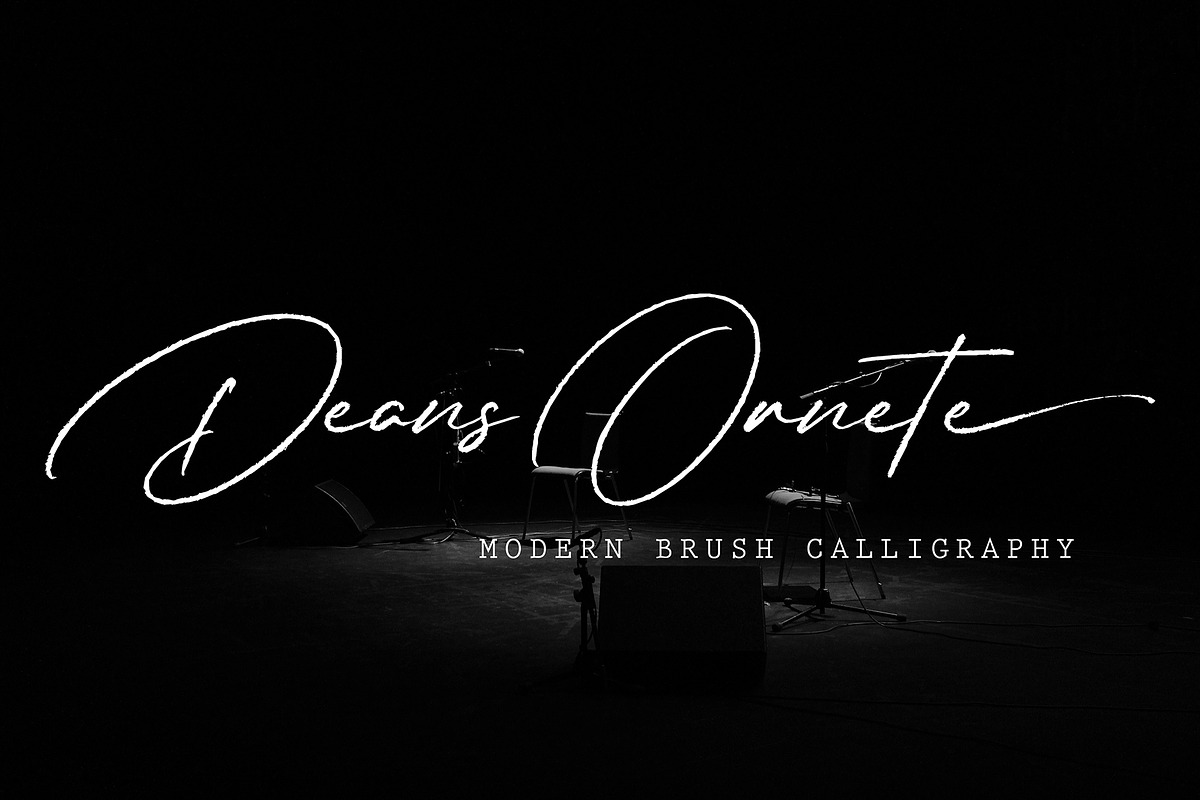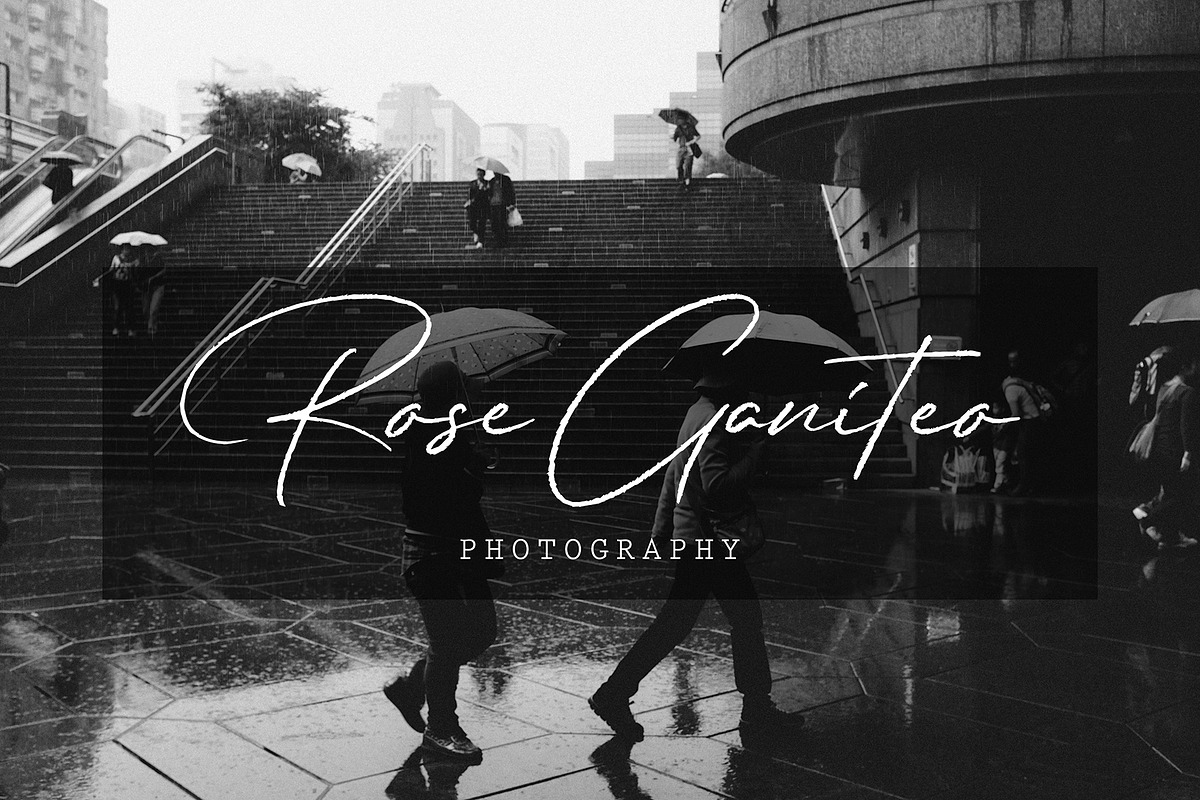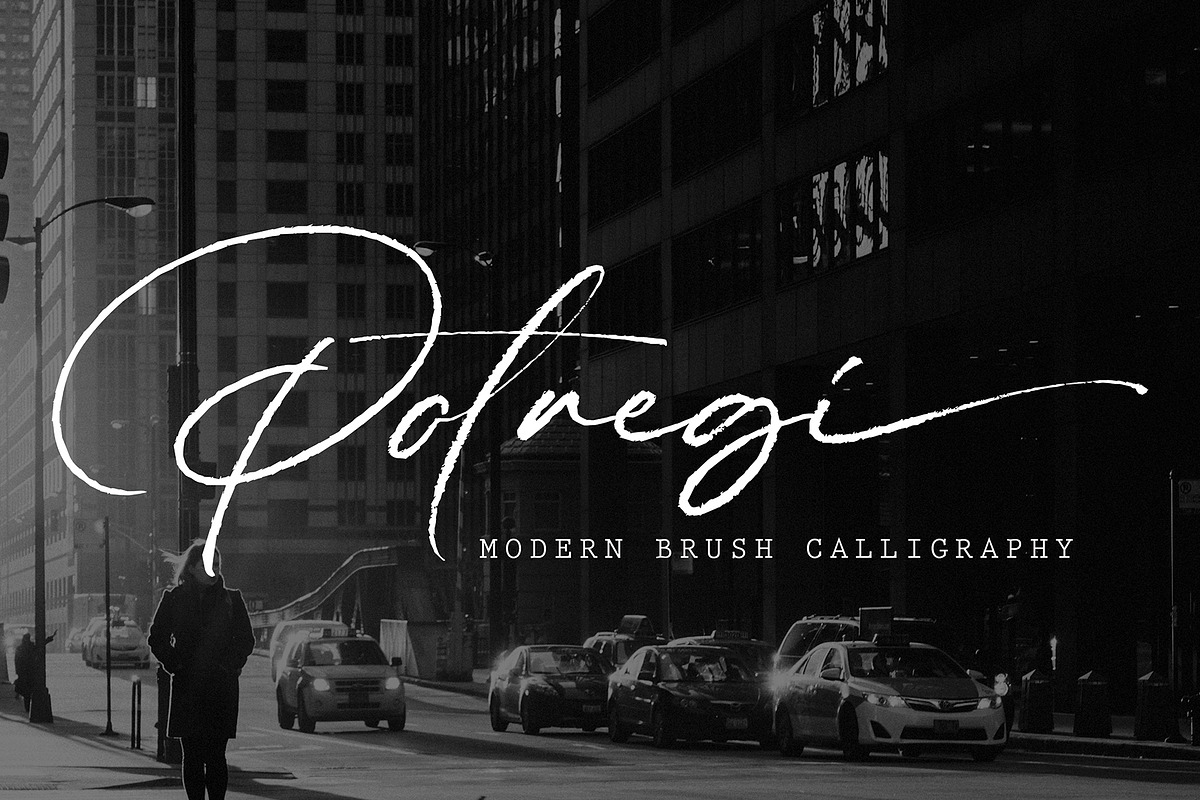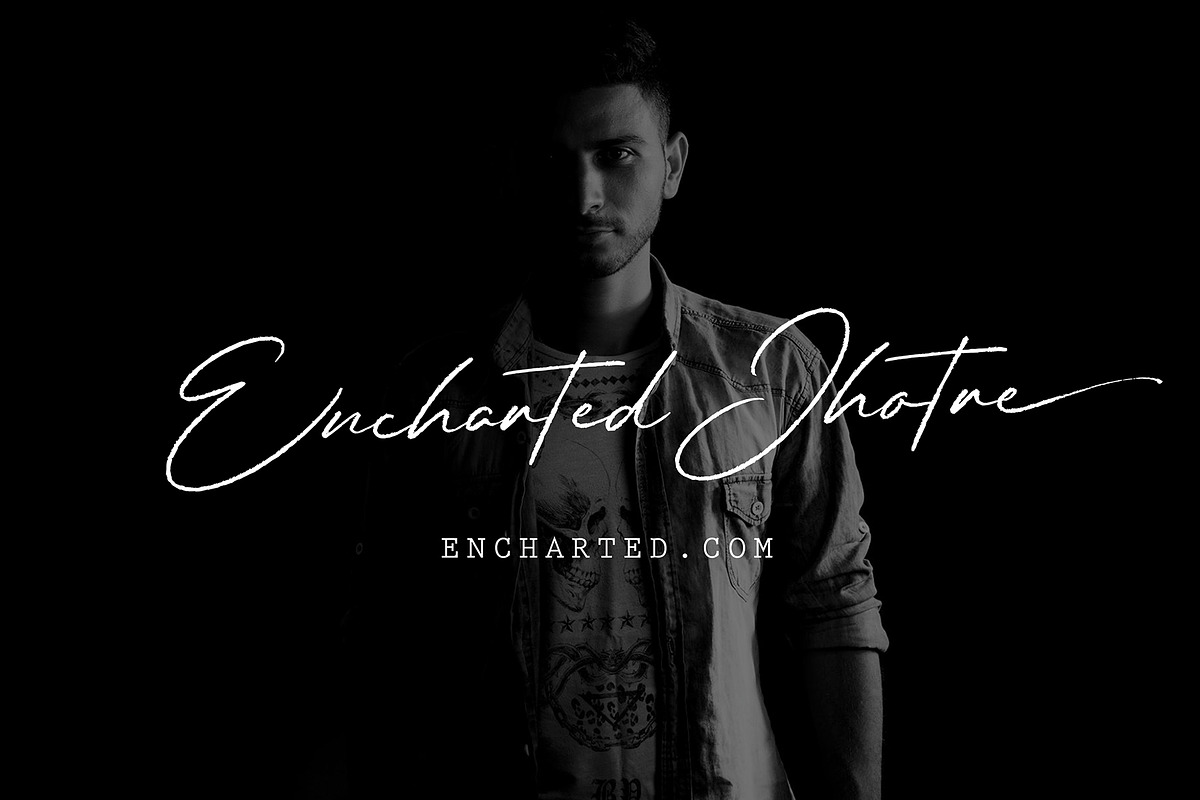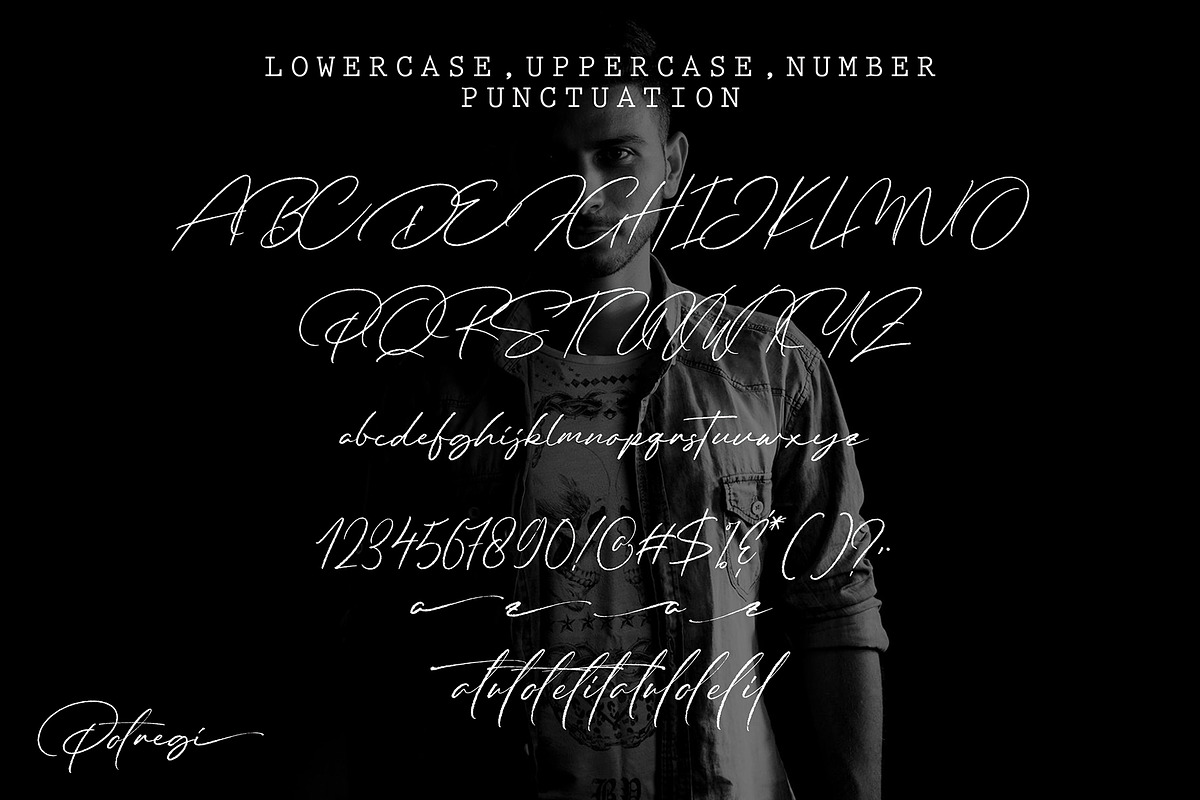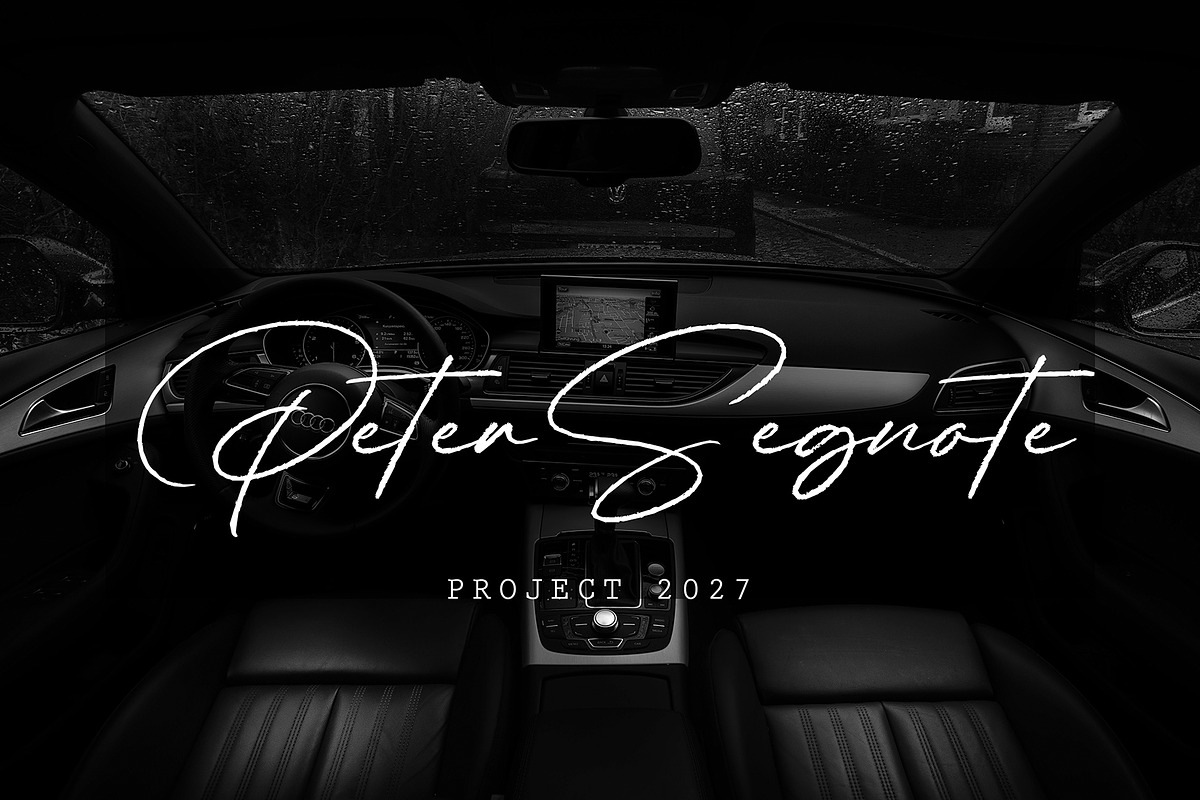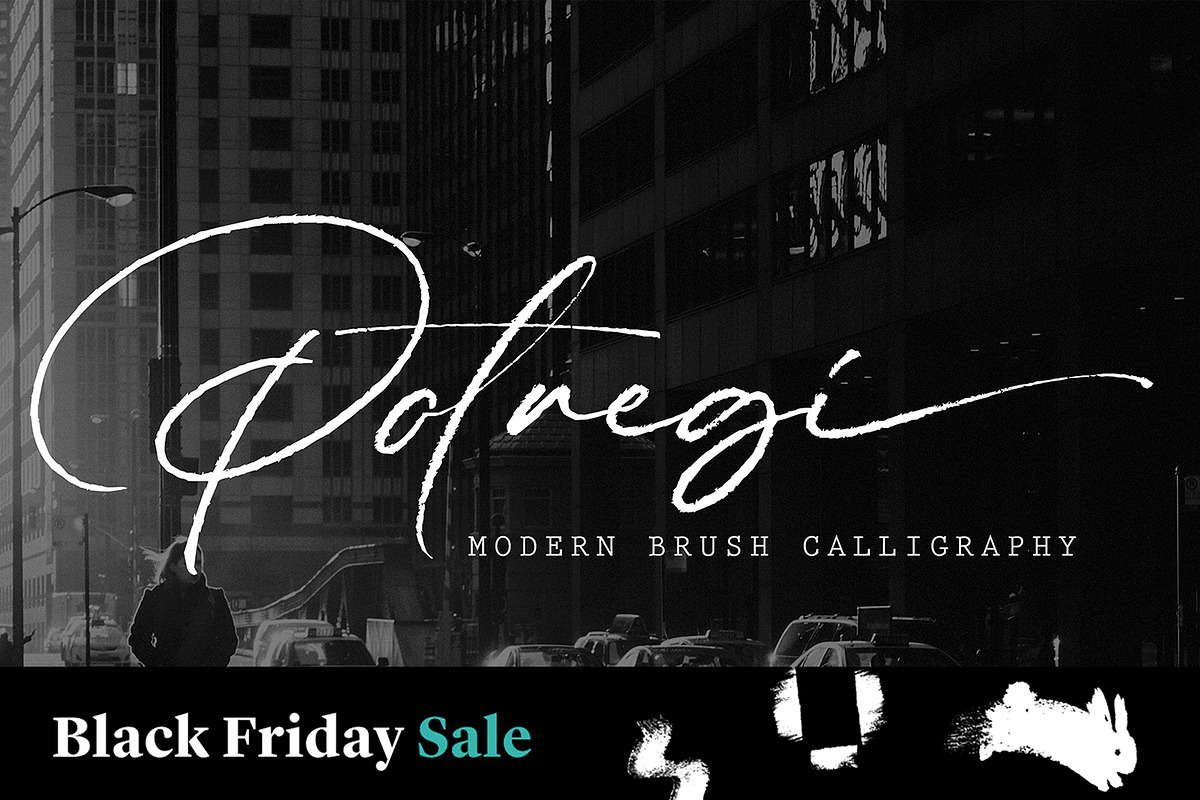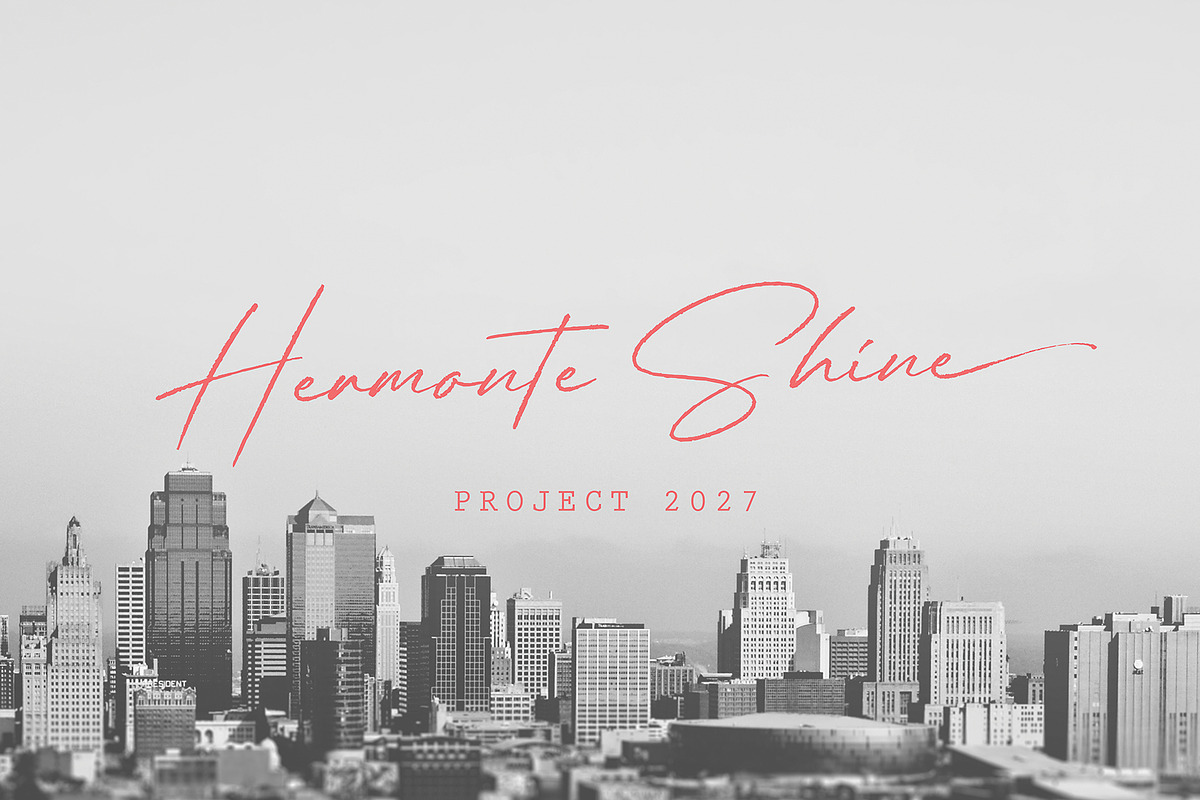
Potregi font with new style, this font will perfect for many different project ex: quotes, logo, blog header, poster, banding, fashion, apparel, letter, invitation, stationery, etc...